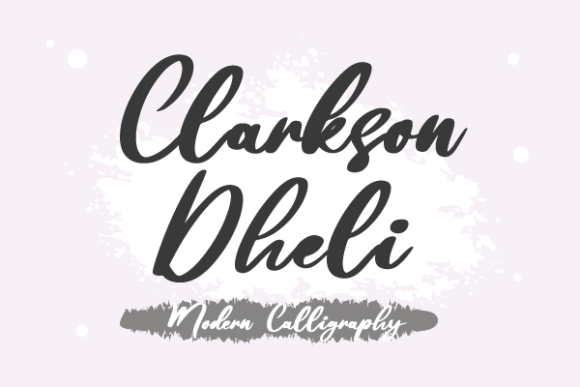
Introduction to Clarkson Dheli Font
Clarkson Dheli feels equally charming and elegant.
Why Choose Clarkson Dheli Font?
Clarkson Dheli Font offers exceptional quality and versatility, making it a valuable addition to your design toolkit. Whether you’re creating for personal projects or commercial use, Clarkson Dheli Font delivers professional results.